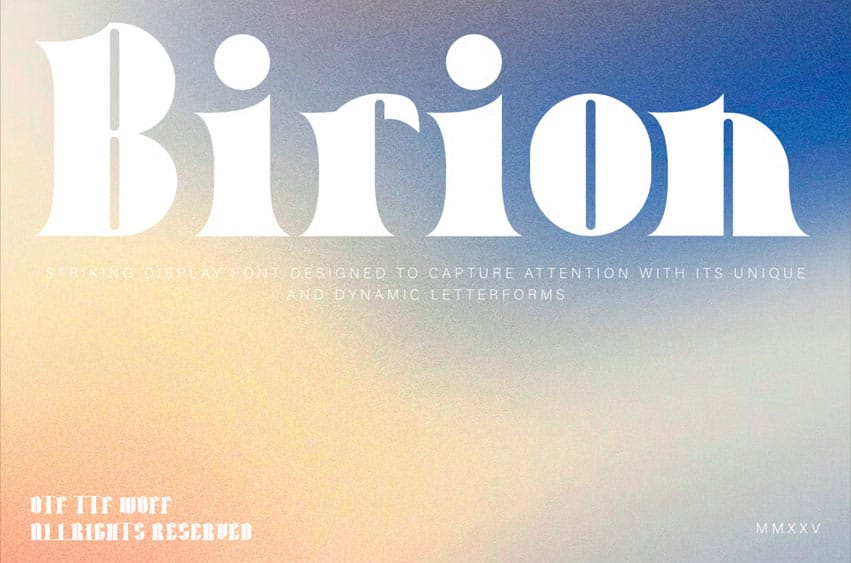
Birion Font display font designed to capture attention with its unique and dynamic letterforms.
Ideal for headlines, posters, branding, and any design that demands prominence, Birion’s strong presence combines modern flair with a sense of elegance.